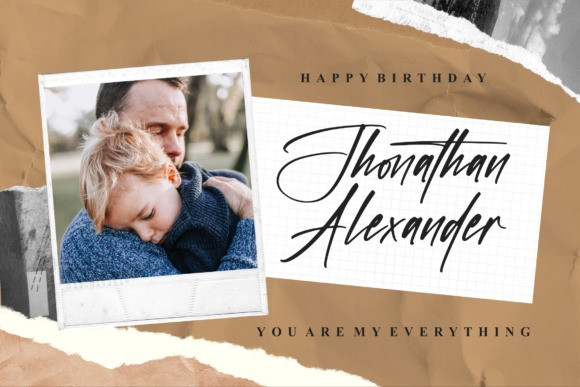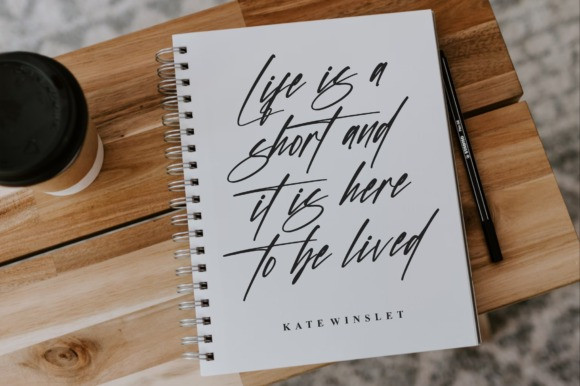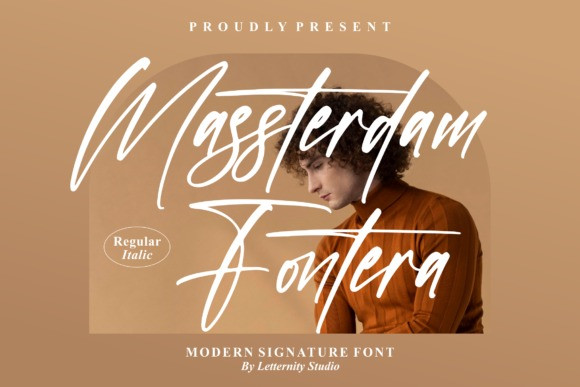
Massterdam Fontera Font
Massterdam Fontera Font is a beautiful script font, suitable for any projects such as logos, branding projects, homeware designs, product packaging, mugs, quotes, posters, shopping bags, t-shirts, book covers, name cards, invitation cards, greeting cards, labels, photography, watermark, special events, and all your other lovely projects that need a beautiful script taste.